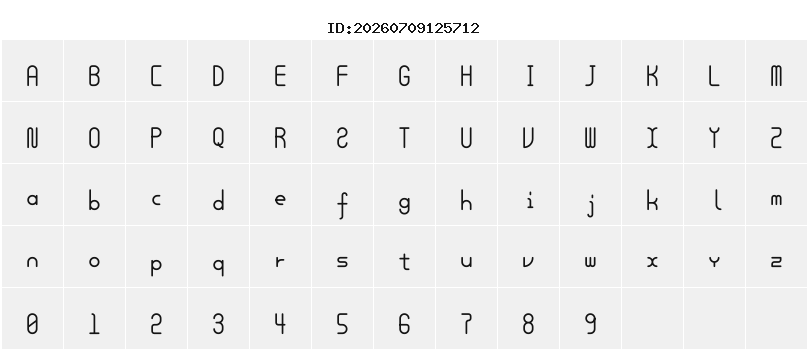
余繁新语 Preview
About 余繁新语.ttf
余繁新语.ttf is a modern, elegant sans-serif font designed for ultimate readability and visual harmony. Perfect for branding, headlines, web design, and print materials.